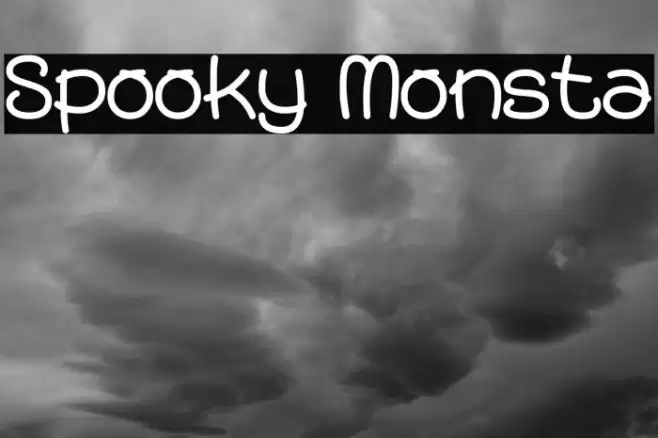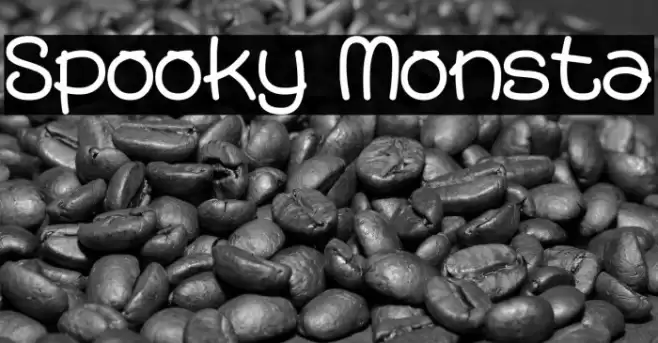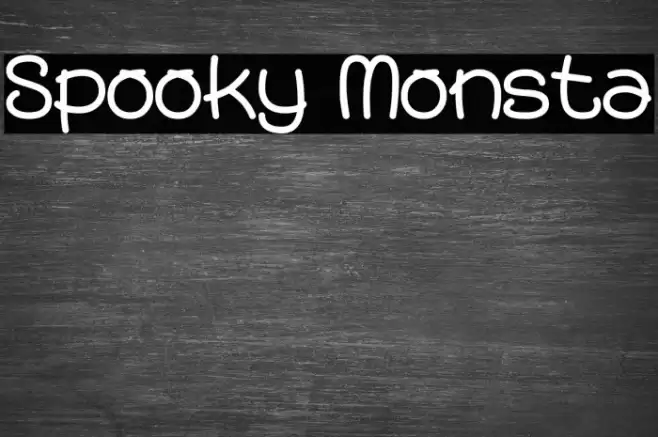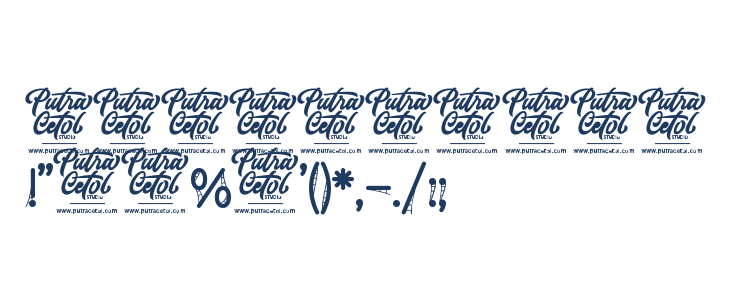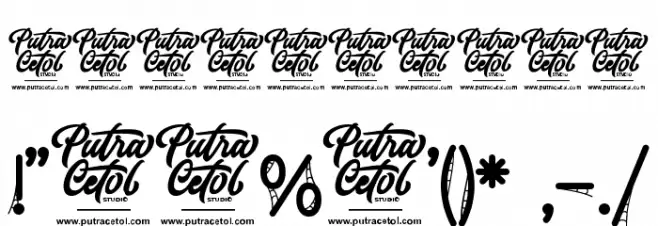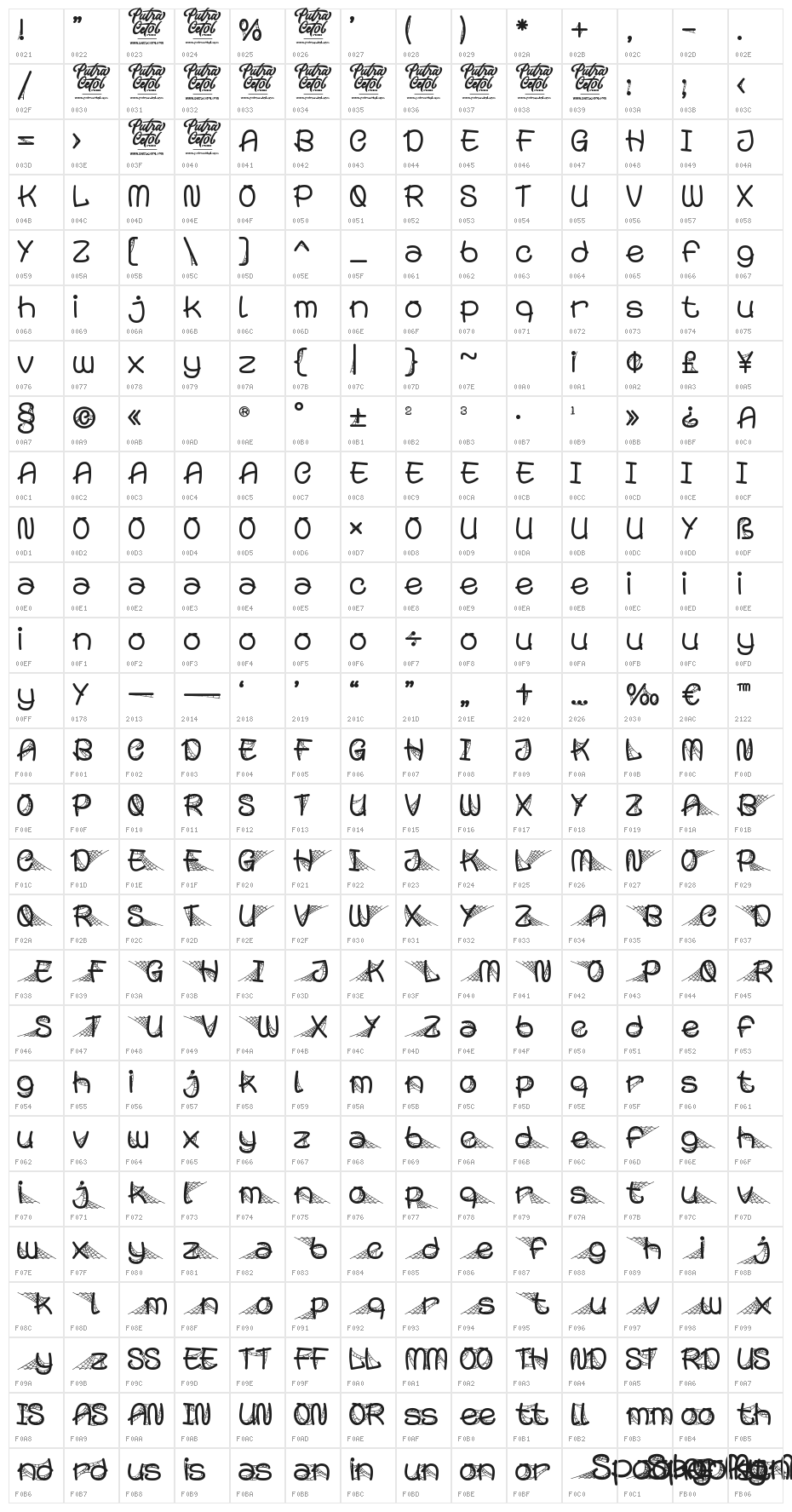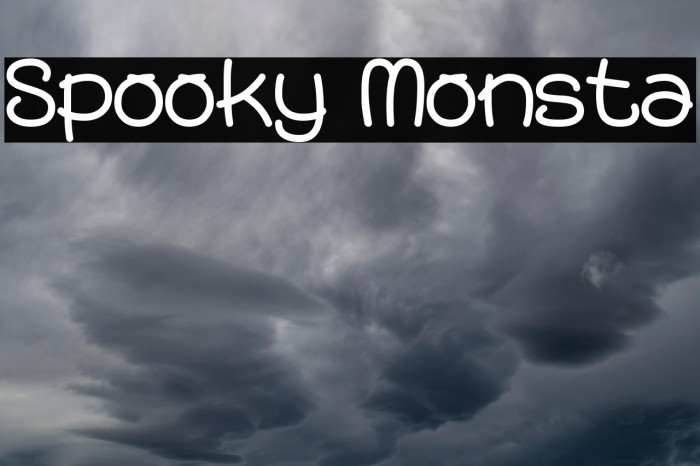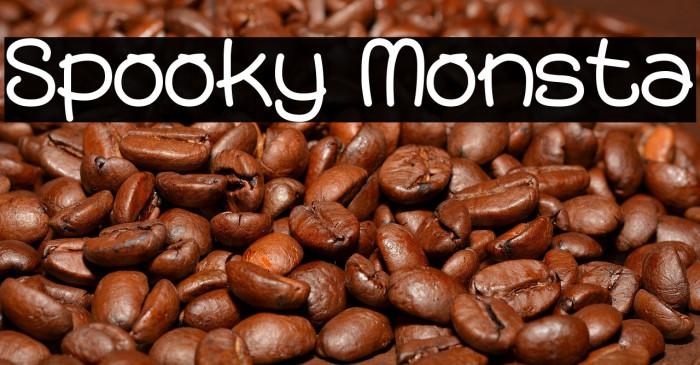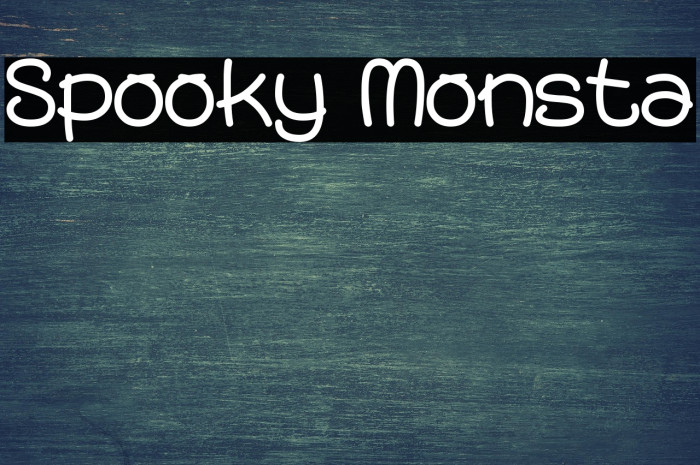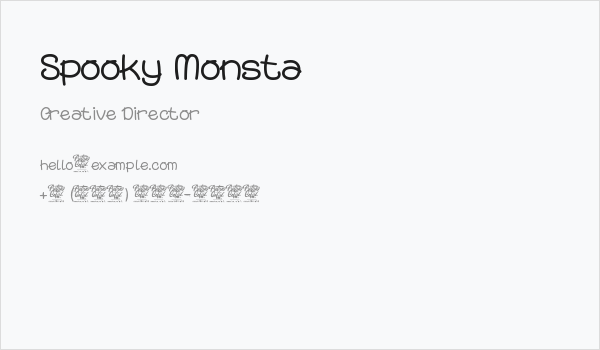
Spooky Monsta Font
Spooky Monsta Description
This playful and quirky font features a handwritten style with a slightly spooky vibe, perfect for adding a touch of whimsy to any project. The letters are rounded and uneven, giving them a casual and friendly appearance. The uppercase and lowercase letters maintain a consistent style, while the numbers and special characters complement the overall design. This font is ideal for creative projects that require a fun and informal touch, such as children's books, Halloween-themed designs, or playful branding.
A quirky, handwritten font with a playful and slightly spooky vibe from Regular fonts.
- Proposed Projects: Ideal for children's books, Halloween designs, playful branding, and creative invitations.
- Overall Style: Playful, Quirky
- Use Case: Headlines, Logos, Invitations